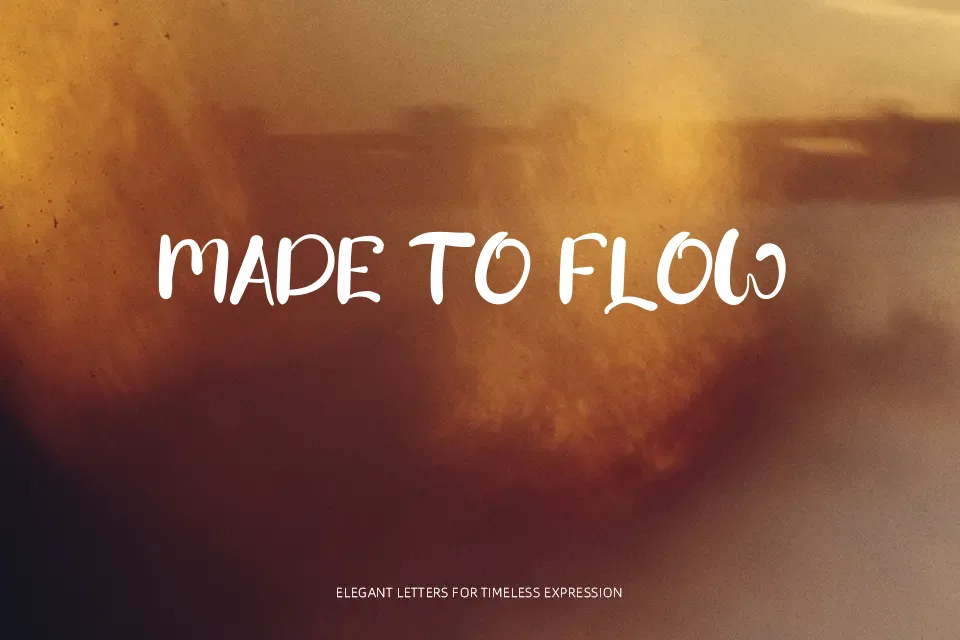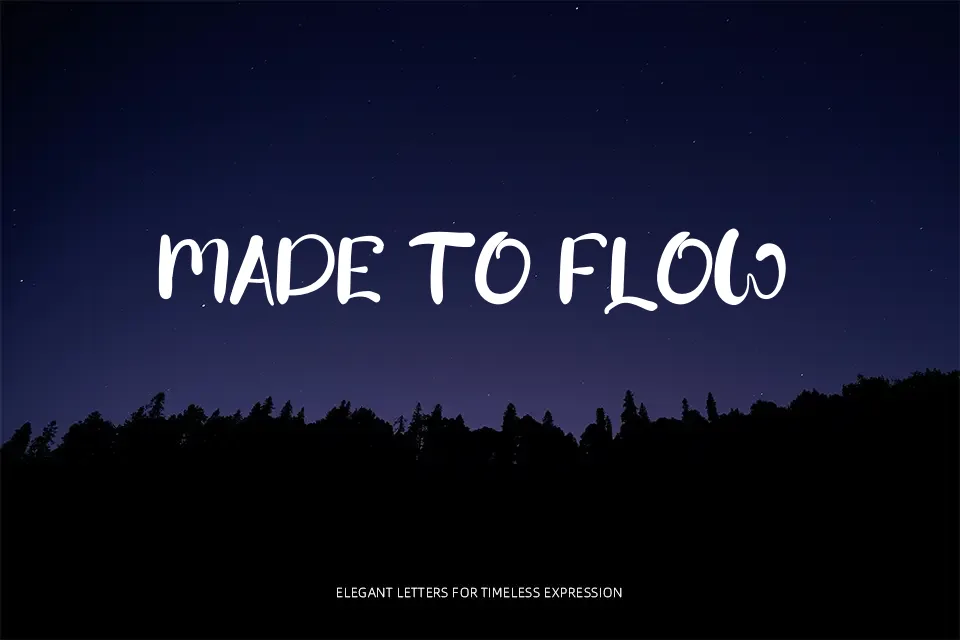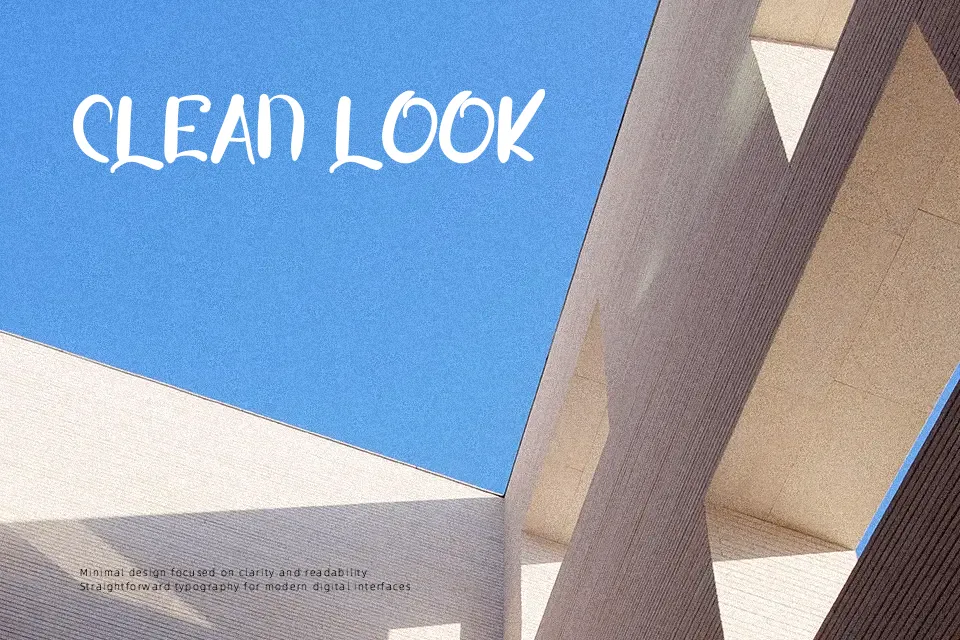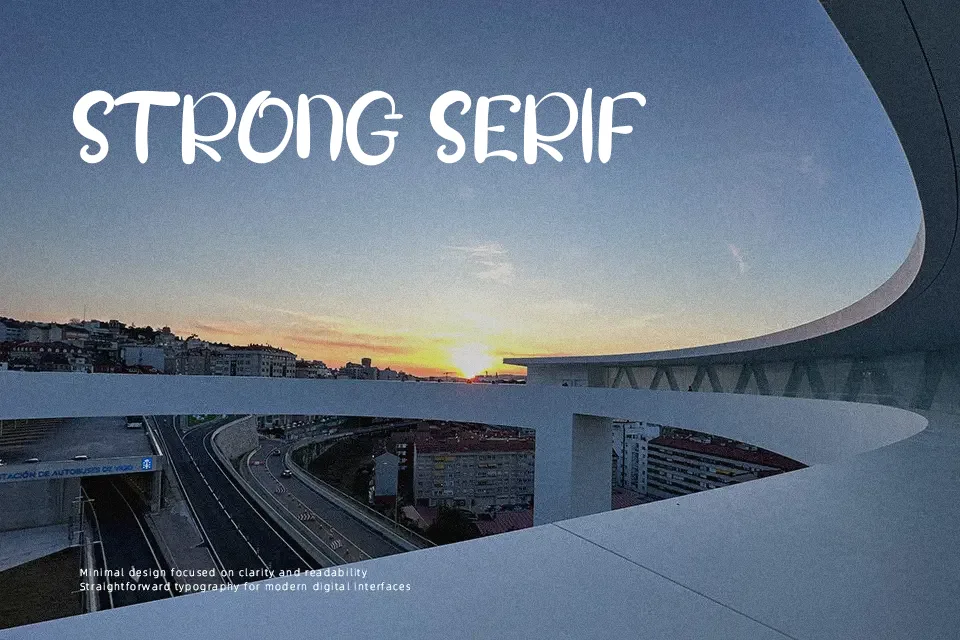
Baby Girl Font
Baby Girl leans on thick, looping strokes and generous curves, giving each letter a soft, handwritten feel with a slightly bouncy baseline. The spacing is moderately tight, so words form compact, decorative blocks that work well in short phrases or titles rather than dense paragraphs. This script comes across as casual and cute rather than formal calligraphy, which fits baby announcements, kids’ posters, or playful quote images. It reads clearly at medium to large sizes, but fine details can feel cramped in very small text or long copy. When used as a headline or logo element paired with a simpler supporting font, it can add warmth; used everywhere in a layout, it quickly becomes visually heavy.
baby shower invitation titles
nursery wall prints and quotes
kids’ product labels and tags
long paragraph text or body copy
formal corporate branding materials
very small caption sizes
Perfect for kids, logo, and poster, with a cute and decorative style.